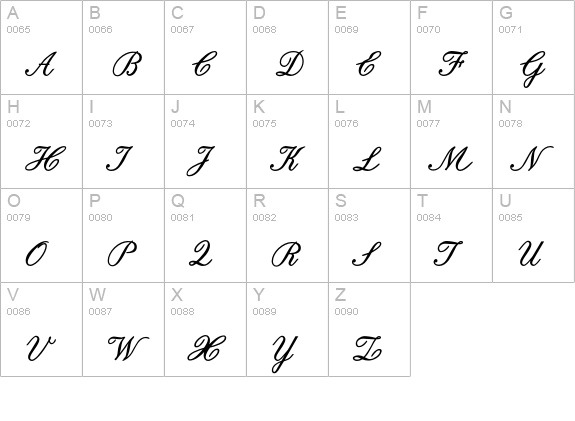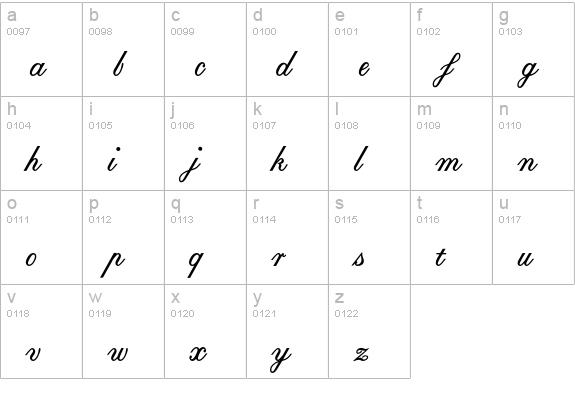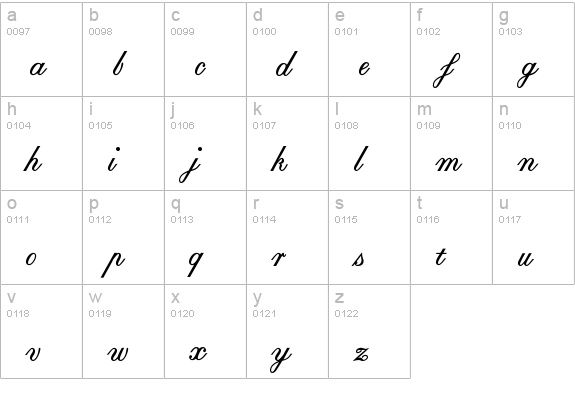
BaronesseBold Font Details
BaronesseBold font is a sophisticated and elegant typeface that exudes class and style. With its bold and commanding presence, this font is perfect for making a statement in any design project. The strong, yet graceful letterforms make BaronesseBold an ideal choice for headlines, logos, and branding materials. What sets BaronesseBold apart is not only its striking appearance, but also its versatility. Whether used for print or digital media, this font will beautifully enhance any layout or composition. Its timeless design ensures that it will remain a classic choice for years to come. The best part? BaronesseBold font is available for free download at FontsMarket.com. So go ahead and add this stunning typeface to your collection today, and elevate your designs with its timeless elegance.